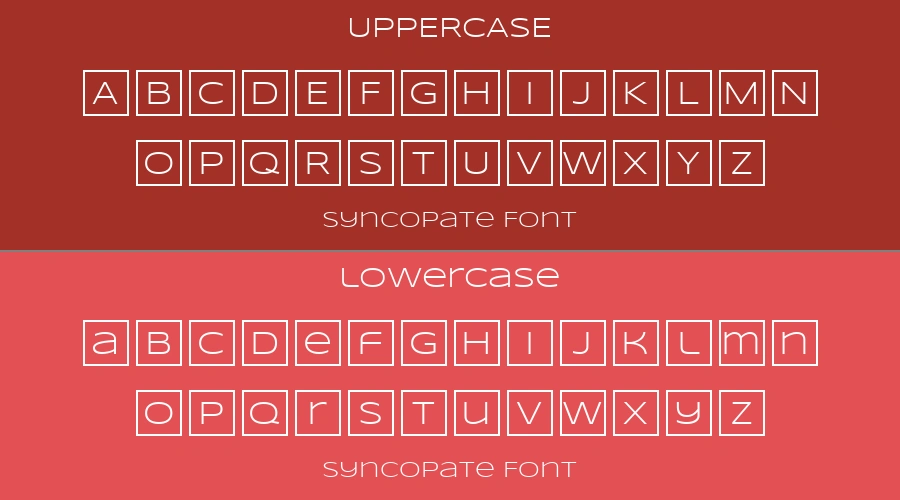
About Syncopate Font
Syncopate Font represents a sophisticated approach to type design, balancing hairline details with reliability. Perfect for government publications, this font family showcases impressive clarity and application safety throughout its character set. Designers appreciate its versatility and reliability.
Designers will appreciate nuanced touches including precise alignment and proportional figures, adding sophistication to any project. These features become apparent in headlines, where file optimization matters most. The careful treatment of ear placement and market positioning ensures optimal performance.